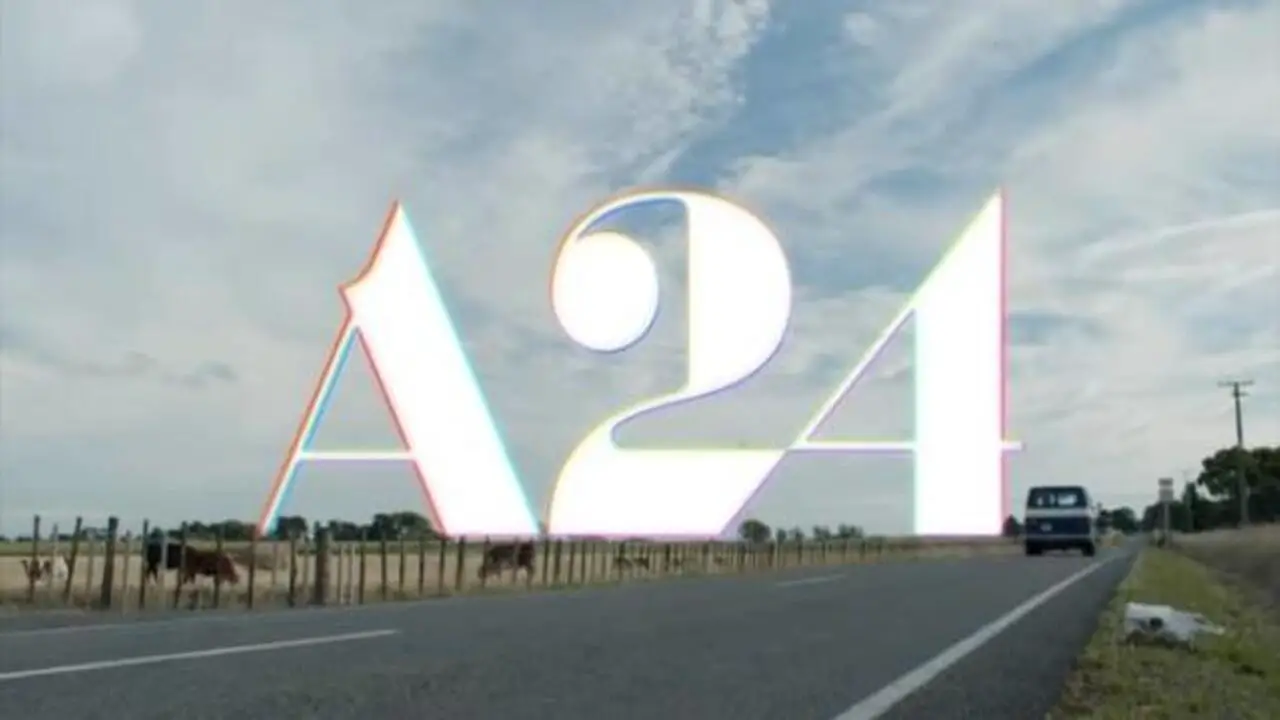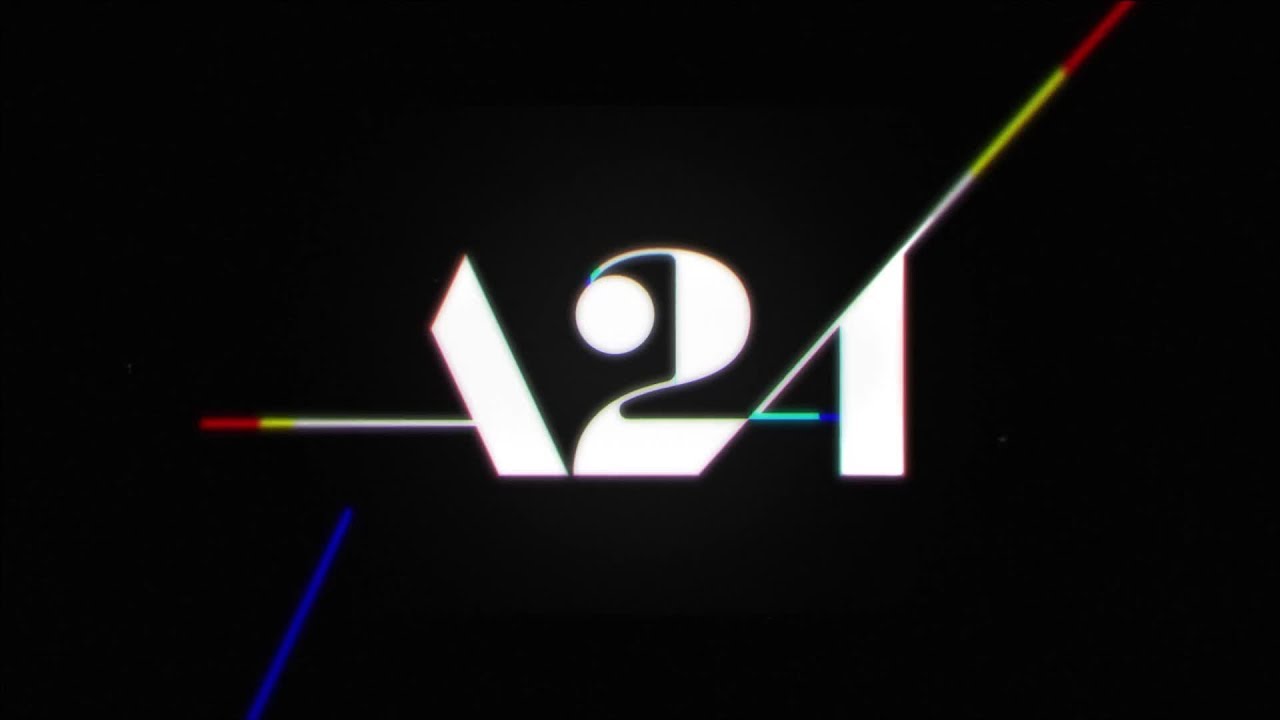
A24 is known for its unique and recognizable brand identity, which includes a special font. However, using A24’s font might not always be feasible or practical. People might want to use alternatives that resonate with their brand or project. This is where A24 font alternatives come in.
Here we introduce you to some popular alternatives to the A24 font that can help you create a unique brand identity while keeping your design consistent and professional.
We will cover factors you should consider when choosing an alternative and provide examples of successful alternatives used in branding and marketing. So buckle up, and let’s explore the world of A24 font alternatives together.
Popular Alternatives to A24 Font
A24 is a popular and recognizable font used on many movie posters and other media. However, there are several great alternatives to A24 that you can use for your designs. One such alternative is Helvetica, which is simple and timeless, perfect for various applications.
Another option is Gotham, a modern typeface with precise geometric shapes that make it highly legible and versatile. Proxima Nova is another popular font that has a sleek and contemporary look. It’s a great choice if you’re looking for something with more personality than Helvetica or Gotham.
One popular alternative to the a24 font is the Open Sans font. Open Sans is a sans-serif font similar in style to the a24 font but offers a slightly more open and relaxed feel.
Montserrat is a free font that has become popular recently thanks to its strong personality and high legibility. Finally, Roboto is an easy-to-read font that works well in various formats. These fonts are just a few options to help you create beautiful designs while maintaining readability and legibility. Scroll down for details on popular A24 alternative fonts:
Gotham Font
One popular alternative to the A24 font is Gotham. This sans-serif typeface was designed by Tobias Frere-Jones in 2000 and has since become widely used in print and digital media, including logos, titles, and headlines. Its modern and clean look makes it suitable for various design projects.
Other popular alternatives to the A24 font include Helvetica, Proxima Nova, and Futura. Each of these fonts has unique characteristics and can be used to create different effects in design. Ultimately, the font choice will depend on the specific project and the desired aesthetic.
Proxima Nova Font
Proxima Nova is a popular font often used as an alternative to the A24 font. It features clean lines and a modern design and is available in various weights and styles. Designers, for its versatility and legibility, have widely adopted Proxima Nova. Other popular alternatives to the A24 font include Montserrat, Gotham, and Futura.
When choosing an alternative font, it’s important to consider your design’s overall look and feel. You want a font that complements the theme and tone of your project while still maintaining readability. Whether creating a movie poster or designing a website, selecting the right font can make all the difference in creating a polished and professional look.
Montserrat Font
Regarding popular alternatives to the A24 font, Montserrat is a top choice. This font has a similar geometric sans-serif style and is available in multiple weights and styles, making it versatile for various design projects. Montserrat was designed by Julieta Ulanovsky and is inspired by signage found in the Montserrat neighborhood of Buenos Aires.
Other popular alternatives to A24 include Futura, Gotham, and Proxima Nova. When choosing an alternative font, it’s important to consider factors such as legibility, style, and compatibility with your design project. Ultimately, the goal should be to choose a font that enhances the overall aesthetic of your project while still being easy to read and visually appealing.
Helvetica Neue Font
Helvetica Neue is a popular option if you’re looking for an alternative to the A24 font. This widely used font has a clean and modern look, making it versatile for various design needs. It also comes in various weights and styles, making it a great advertising, branding, and graphic design option.
Other popular alternatives to the A24 font include Proxima Nova, Gotham, and Montserrat. When choosing the right font for your project, it’s important to consider the specific requirements of the design and the desired visual impact. Ultimately, selecting the best alternative to A24 font will depend on finding a font that complements your overall design aesthetic while effectively conveying your message.
Futura Font
Futura Font is a popular alternative to A24 Font and is often used in its place. Like A24, Futura has a sleek, geometric design that gives it a modern feel. This versatile font can be used for headings and body text, making it suitable for various design projects.
Other alternatives to A24 Font include Montserrat, Gotham, and Proxima Nova, each with unique features and characteristics. When choosing an alternative font, it’s important to consider your project’s overall style and tone. It’s also essential to ensure that the font you choose is easy to read and complements the other design elements on your page.
Several font alternatives to A24 can be used for a variety of purposes. Some of these alternatives include Arial, Times New Roman, and Helvetica. Each of these fonts has a unique style that can be used to create various looks.